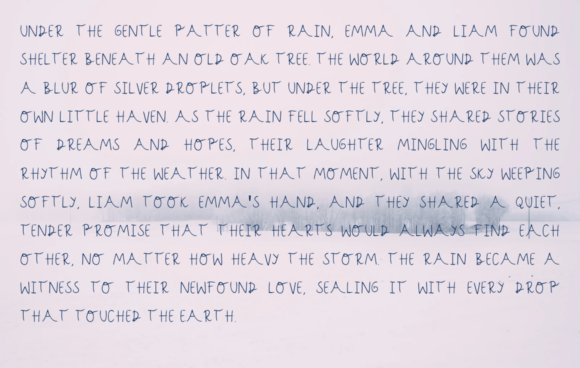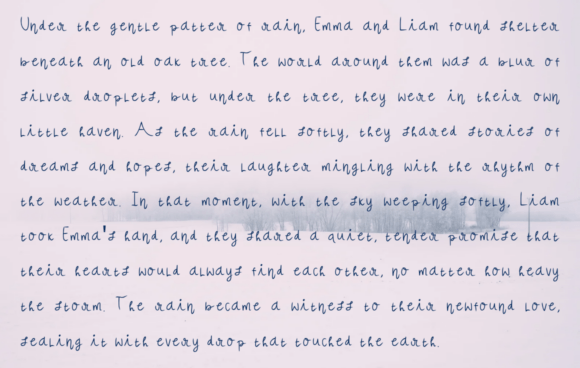
Discover the Soothing Beauty of Caligraphr Font
Have you ever found yourself lost in the process of creating a design, pouring over every detail, only to step back and feel that something is missing? It’s in these moments of uncertainty that we search for the perfect element to elevate our work. For designers seeking a touch of elegance and subtlety, the Caligraphr Font Font is an answer to their prayers.
This delicate monoline script is designed to whisper its presence, making it the ideal choice for minimalist photography watermarks, poetic layouts, and sensitive branding. The consistent line weight of the Caligraphr Font Font ensures a modern, clean look that doesn’t overwhelm the visuals, allowing your imagery to remain the focus.
Caligraphr Font Key Features
- Unique Characteristics: Features a unique, handwritten style with subtle variations in letterforms, giving it a personal and artistic touch.
- Language Support: Supports a wide range of languages, including Latin, Cyrillic, and Greek scripts, making it suitable for multilingual designs.
Design Review: Caligraphr Font Font
Caligraphr Font Font is a unique and eye-catching font that can add a touch of elegance to any design project. ✨ One of the things that works well with this font is its versatility – it can be used for a wide range of projects, from invitations to logos, and it looks great in both digital and print formats. ✨ The font’s fluid lines and cursive script make it perfect for creating a sense of movement and flow, which can be especially effective for headings and titles.
However, there are some limitations to consider. ⚠️ One of the main issues is that the font can be difficult to read at small sizes, especially in digital formats. ⚠️ Additionally, the font’s complexity can make it challenging to pair with other fonts, which can limit its usability in certain design projects.
Overall, I would give Caligraphr Font Font a solid 4 out of 5 stars. While it’s not perfect, it’s a great choice for designers who want to add a touch of sophistication and elegance to their work.
- Unique and eye-catching design
- Highly versatile and suitable for a wide range of projects
- Fluid lines and cursive script create a sense of movement and flow
- Can be challenging to read at small sizes, especially in digital formats
- Complexity can make it difficult to pair with other fonts
Getting the Most Out of Caligraphr Font
For optimal results, use Caligraphr Font in conjunction with bold or italic styles to create visual interest.
Experiment with different font sizes and colors to create a unique look.
Caligraphr Font is ideal for:
Brand logos and marketing materials
Editorial and creative content
Alternatives to Caligraphr Font Font for Designers
Great Vibes is a modern, elegant script font ideal for creating a sophisticated and stylish look. It is suitable for use in advertising, fashion, and luxury branding. Great Vibes is a more refined and polished alternative to Caligraphr Font Font, with a more cohesive and flowing design.
Carolyna Pro is a high-end script font designed for luxury branding, advertising, and editorial use. It features a more refined and elegant design compared to Caligraphr Font Font, with a focus on sophistication and high-end feel. Carolyna Pro is perfect for designers looking to create a premium and exclusive look.
Q: Does the Caligraphr Font support multilingual typing?
Yes, the Caligraphr Font supports a wide range of languages, including Latin, Cyrillic, and Greek scripts. However, please note that some languages may require additional font features or configurations to function properly.